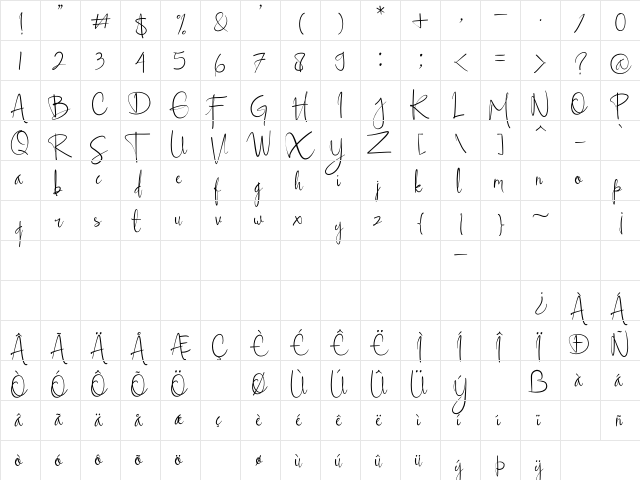
Ellyshabeth Regular
Design Context for Ellyshabeth Typeface
Ellyshabeth is a composed and adaptable typeface that performs quietly and consistently across a wide range of design contexts.